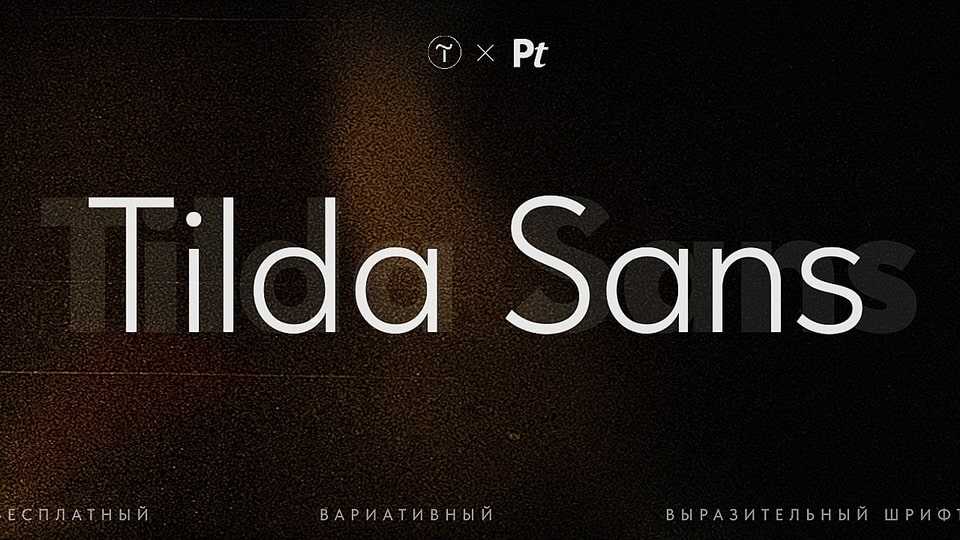
Download Tilda Sans font, a geometric sans serif typeface for the web that features seven font weights combined into a variable typeface. Tilda Sans works well for both headings and body text, and also has a neutral character.